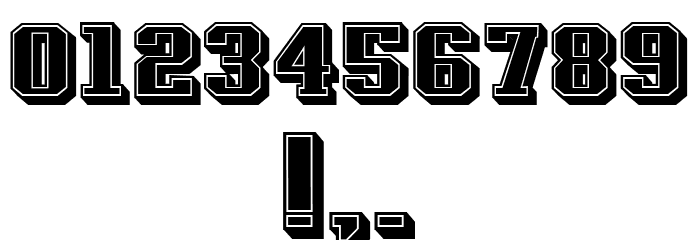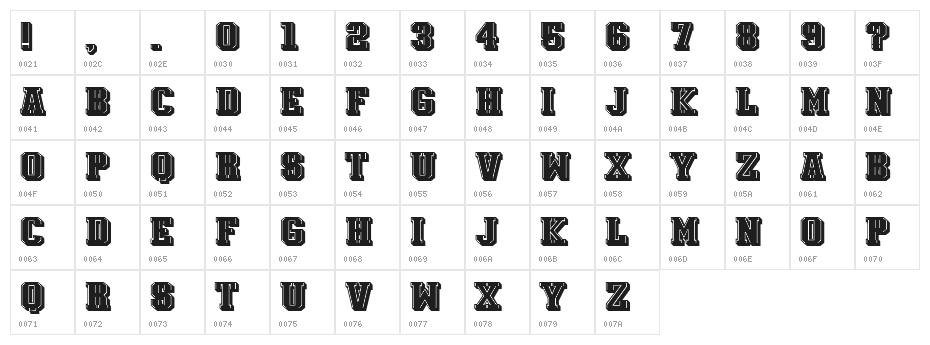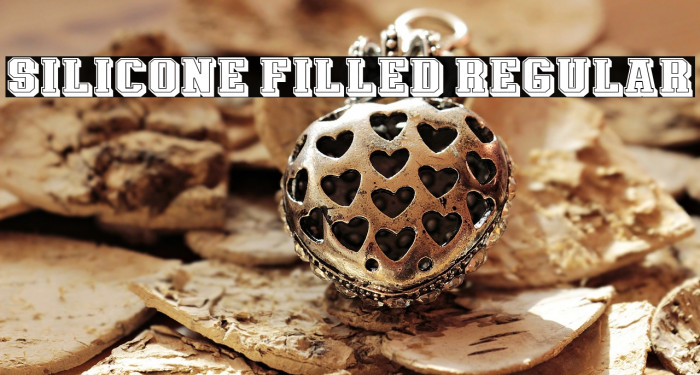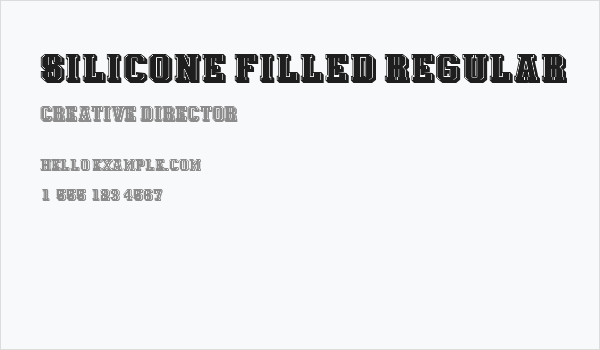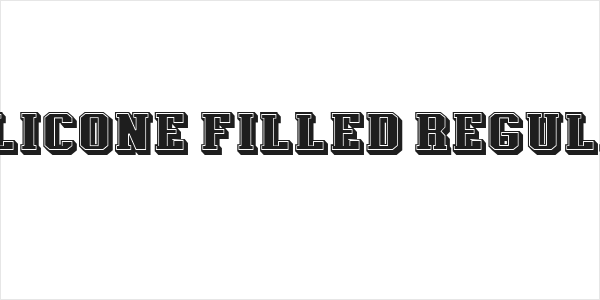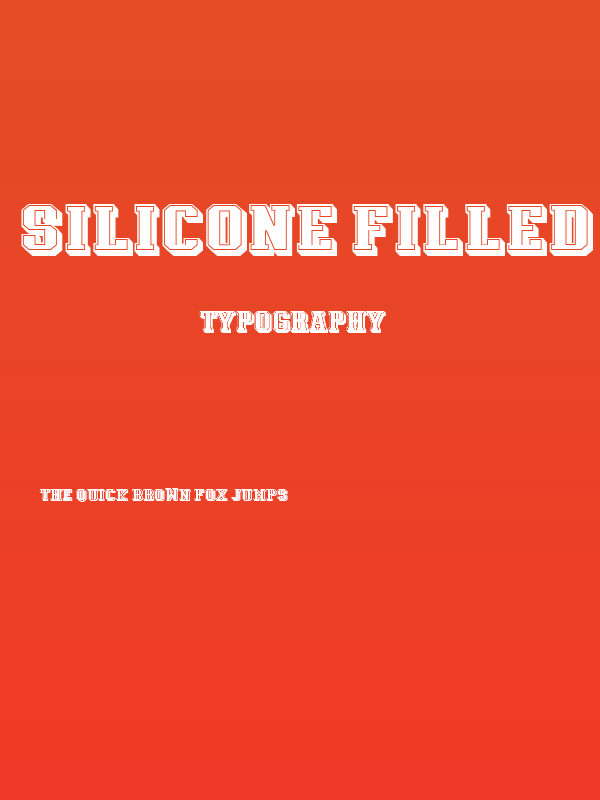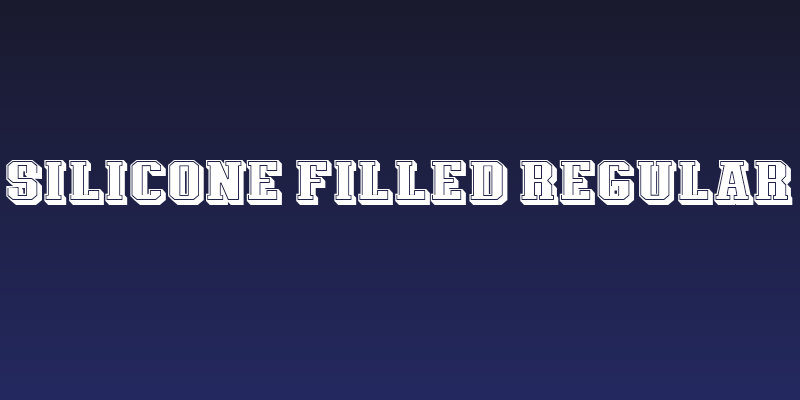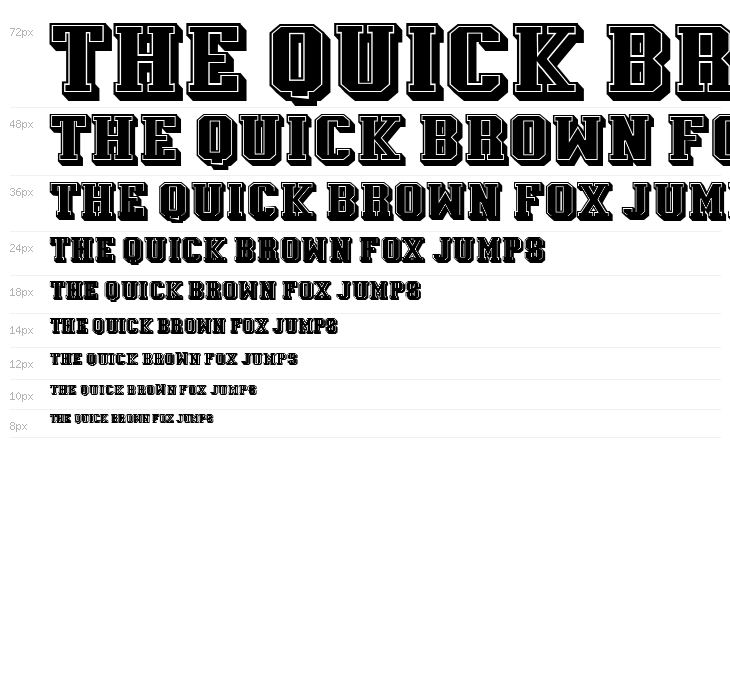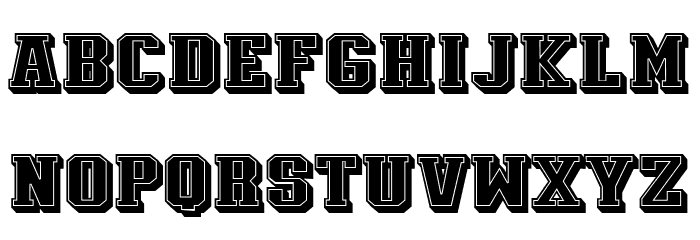
Silicone Filled Regular Font
Silicone Filled Regular Description
This font features bold, blocky characters with a strong, impactful presence. The letters are outlined with a thick border, giving them a three-dimensional appearance. The style is reminiscent of collegiate or sports team lettering, with a solid and authoritative look. The uppercase and lowercase letters maintain a consistent design, ensuring uniformity across the typeface. Numbers and special characters are designed to match the bold and structured aesthetic, making this font suitable for attention-grabbing headlines or logos. The overall design is clean, with a modern twist on traditional block lettering.
| Proposed Projects | Ideal for sports team branding, event posters, and bold headlines. |